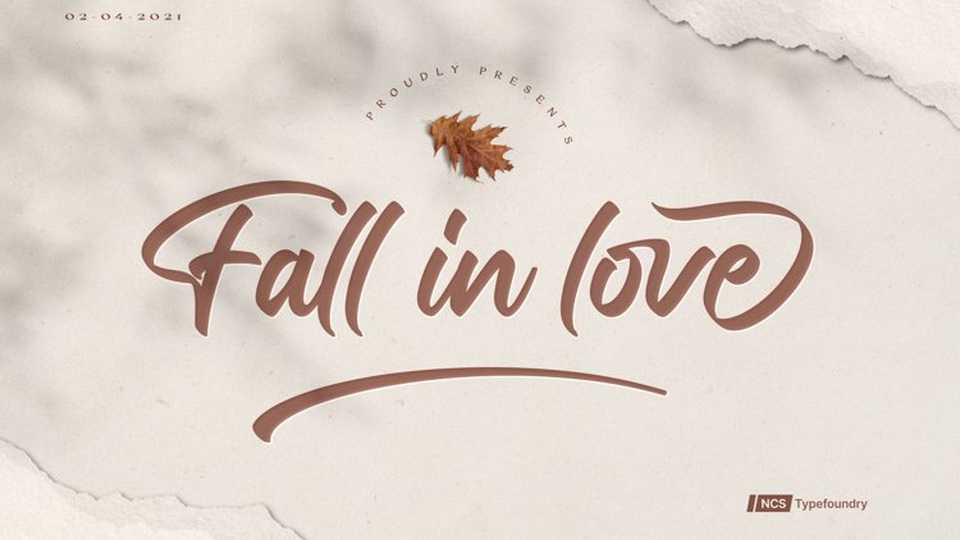
Fall in Love Script Font › Fontesk
Download Fall in Love font, a bold and stylish calligraphy script typeface with modern touch give authentic, charismatic and confident choice for a range of design projects.
Designer: Namara Creative Studio